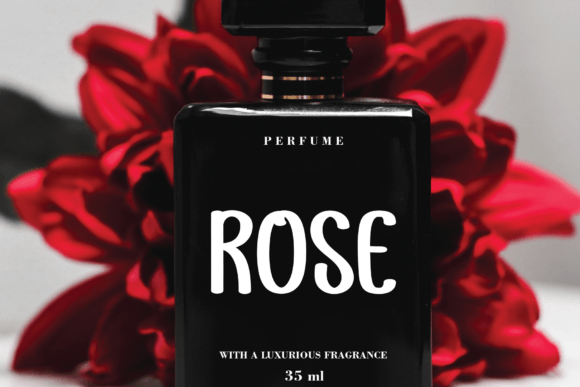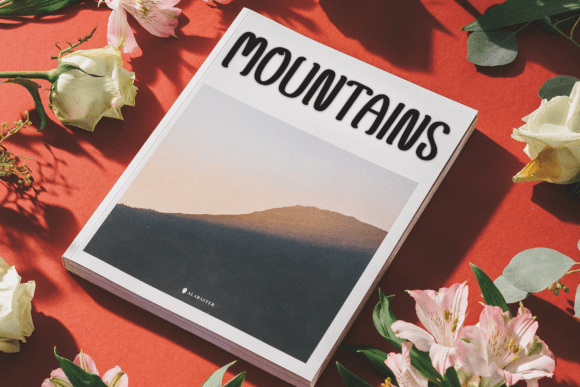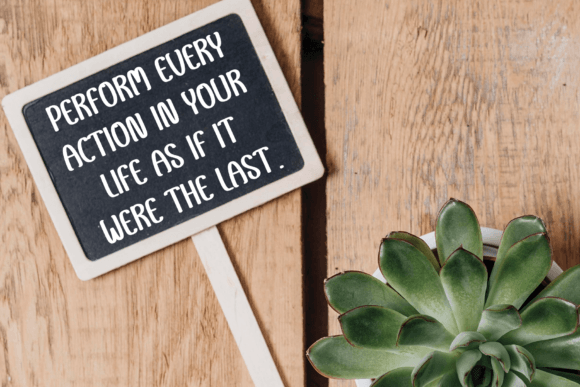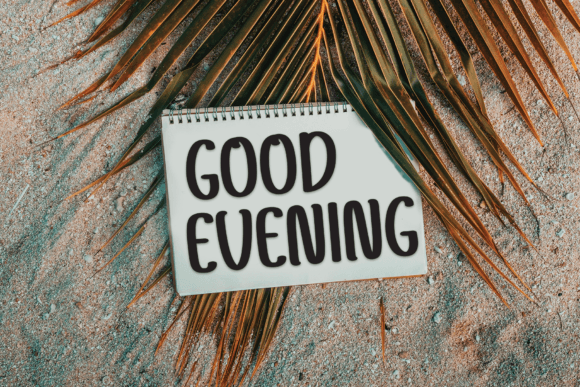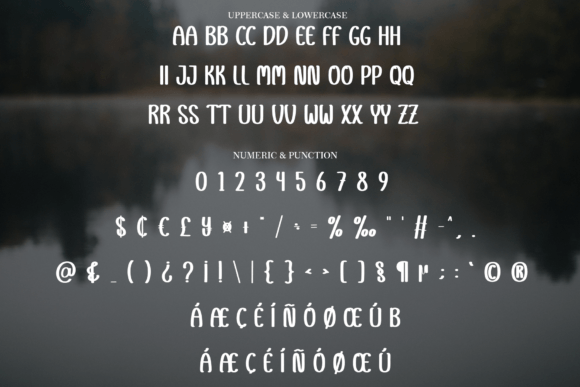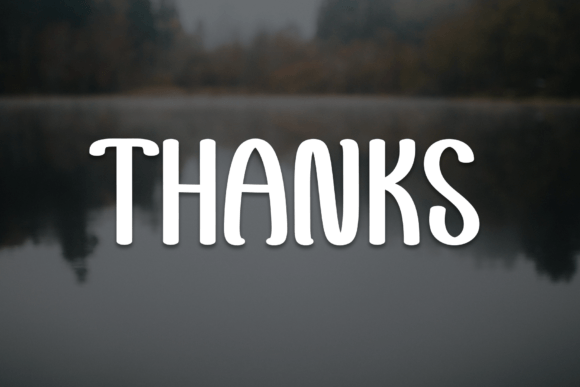
The Perfect Blend of Whimsy and Elegance: Calm Font
Have you ever been stuck trying to decide on the perfect font for a special project, only to find yourself scrolling through endless options, none of which seem to capture the essence of your vision? You know the feeling – it’s like searching for a needle in a haystack, except the needle is a beautiful, handwritten font that perfectly complements your design.
Enter Calm Font, a sweet and friendly handwritten font that’s sure to bring a touch of warmth and personality to any project. Whether you’re crafting wedding invitations, designing cards, or working on any other design that needs a fun and playful twist, Calm Font is the perfect choice. Its fresh and cute style makes it an ideal addition to any designer’s toolkit.
As a designer, you know how valuable it is to have a versatile and reliable font at your disposal. Calm Font is more than just a pretty face – it’s a valuable asset that can help you create unique and memorable designs that stand out from the crowd.
Calm Font Key Features
- Unique Characteristics: The font features a unique blend of modern and traditional elements, creating a soothing and calming atmosphere in any design.
- Kerning and Ligatures: The font includes advanced kerning and ligature features, ensuring smooth and professional-looking text at various font sizes.
Calm Font Review
Overall, I think the Calm Font is a solid addition to any designer’s toolkit. Here are some things that really stand out: ✨
- Smooth and elegant curves give the font a professional look, making it perfect for corporate or business projects.
- The font’s subtle rounded edges also make it easy to read, even at smaller font sizes.
- The Calm Font’s versatility allows it to work well in both print and digital projects.
- The font may not be the best choice for projects that require a bold, edgy look, as it tends to lean more towards the classic and professional side.
- The font’s character set may not be as extensive as some other fonts, which could be a limitation for certain projects.
Overall, I think the Calm Font is a great choice for designers who want a professional, easy-to-read font that can work well in a variety of projects. While it may not be the best fit for every project, it’s definitely worth considering for its smooth curves and versatility.
Getting the Most Out of Calm Font
For optimal results, use Calm Font in conjunction with calming colors and imagery. Experiment with different font sizes and styles to create visual interest.
Calm Font is ideal for:
- Creating relaxing marketing materials (e.g., yoga studios, wellness centers)
- Designing calming social media posts (e.g., meditation, mindfulness)
- Developing peaceful presentations (e.g., sleep, relaxation techniques)
For optimal readability, we recommend using the Calm Font with a font size between 12 and 24 points. A line height of 1.2 to 1.5 times the font size is also recommended to ensure comfortable reading. You can adjust these settings according to your design preferences and requirements.